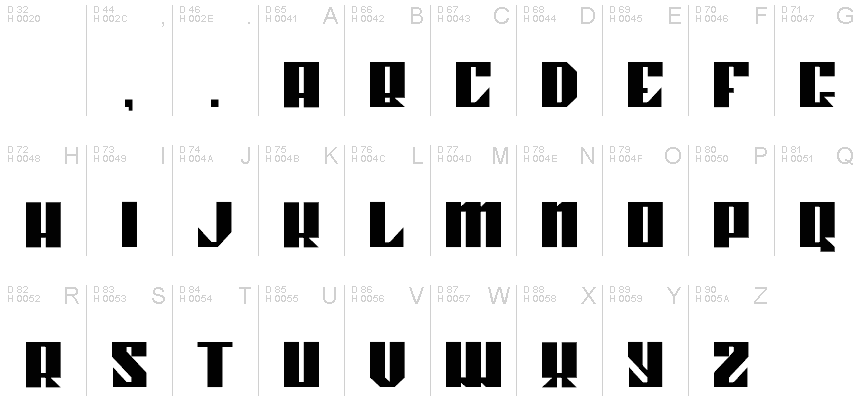
Kahnstruct Regular
Here is Kahnstruct, a font I designed in my typeface design class at Kutztown University. It is based off of the architectural work of Louis Kahn. It is best used for headlines.